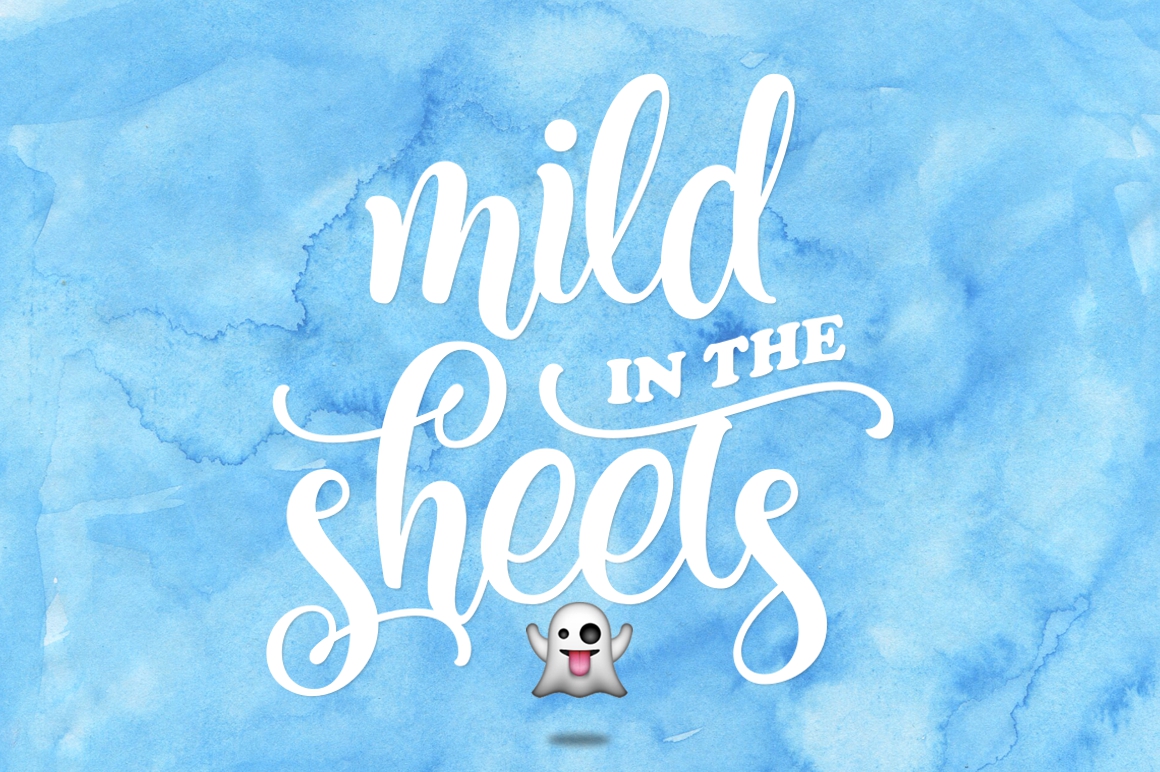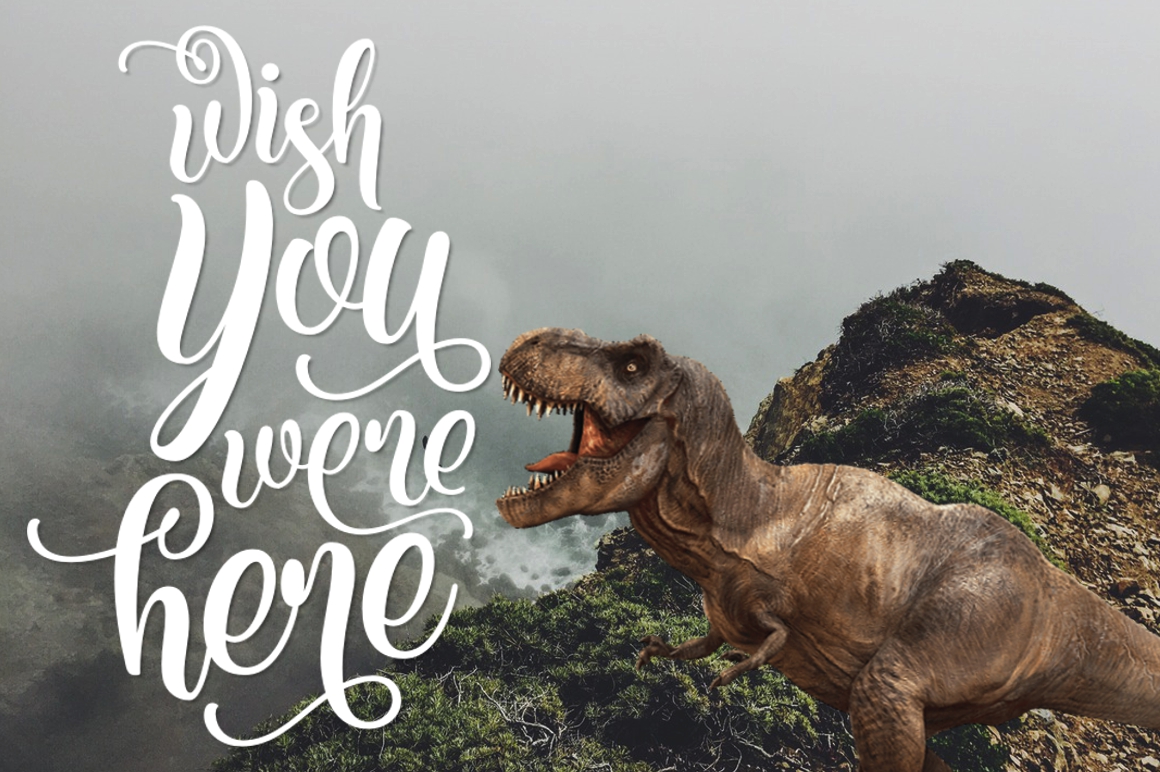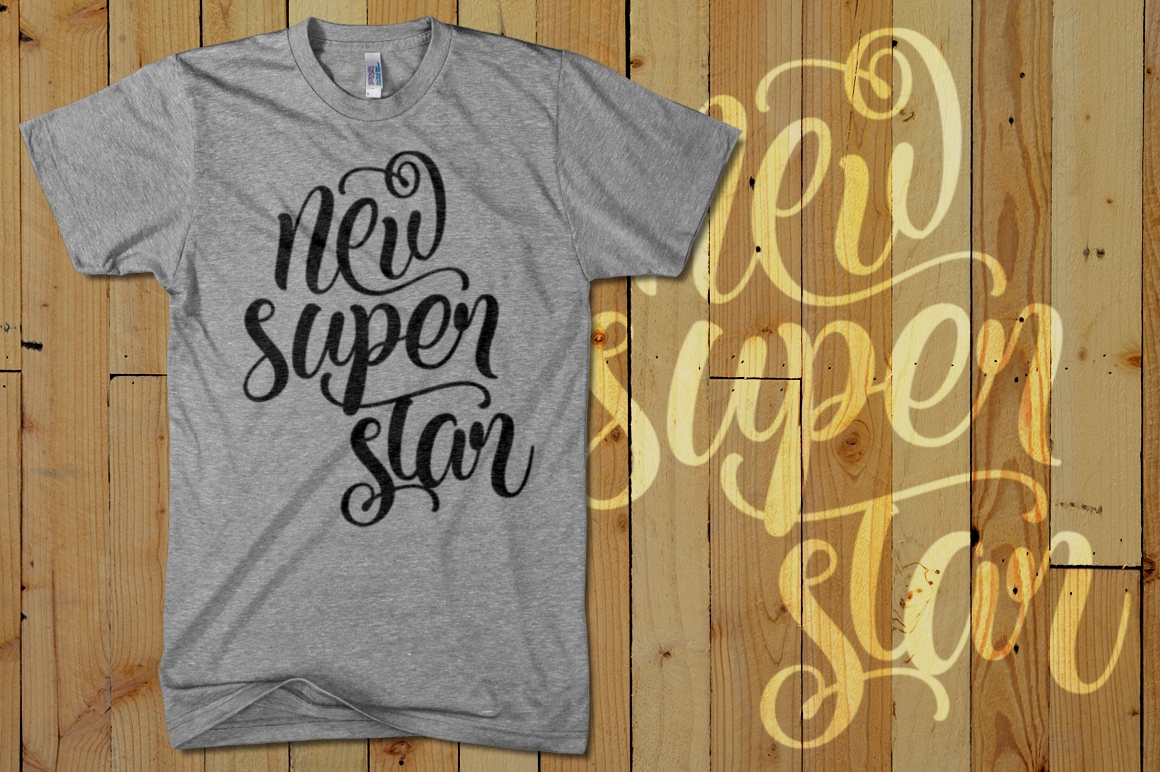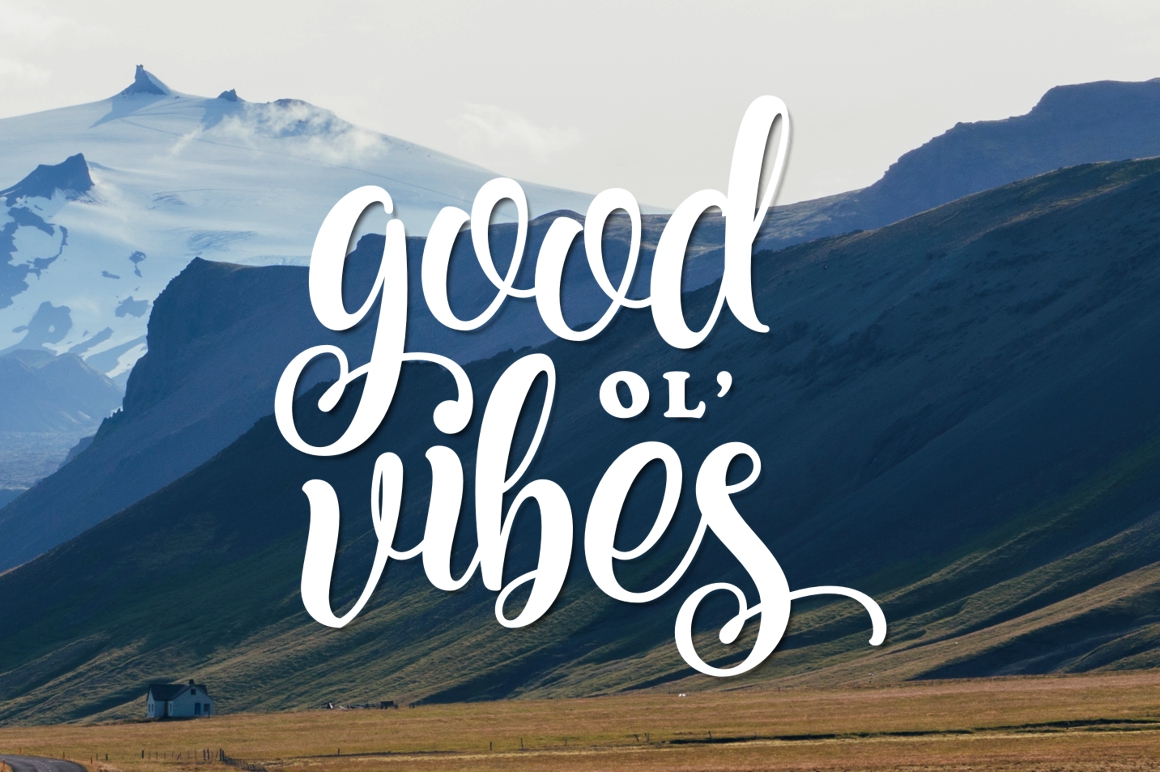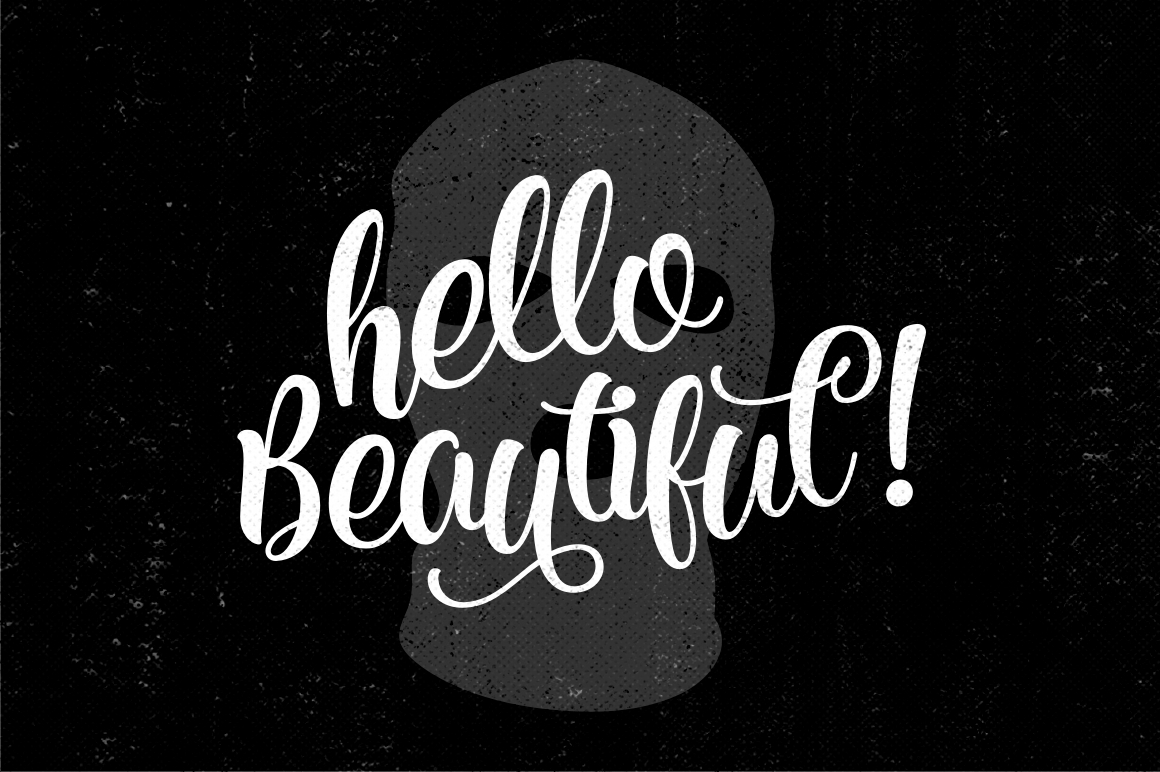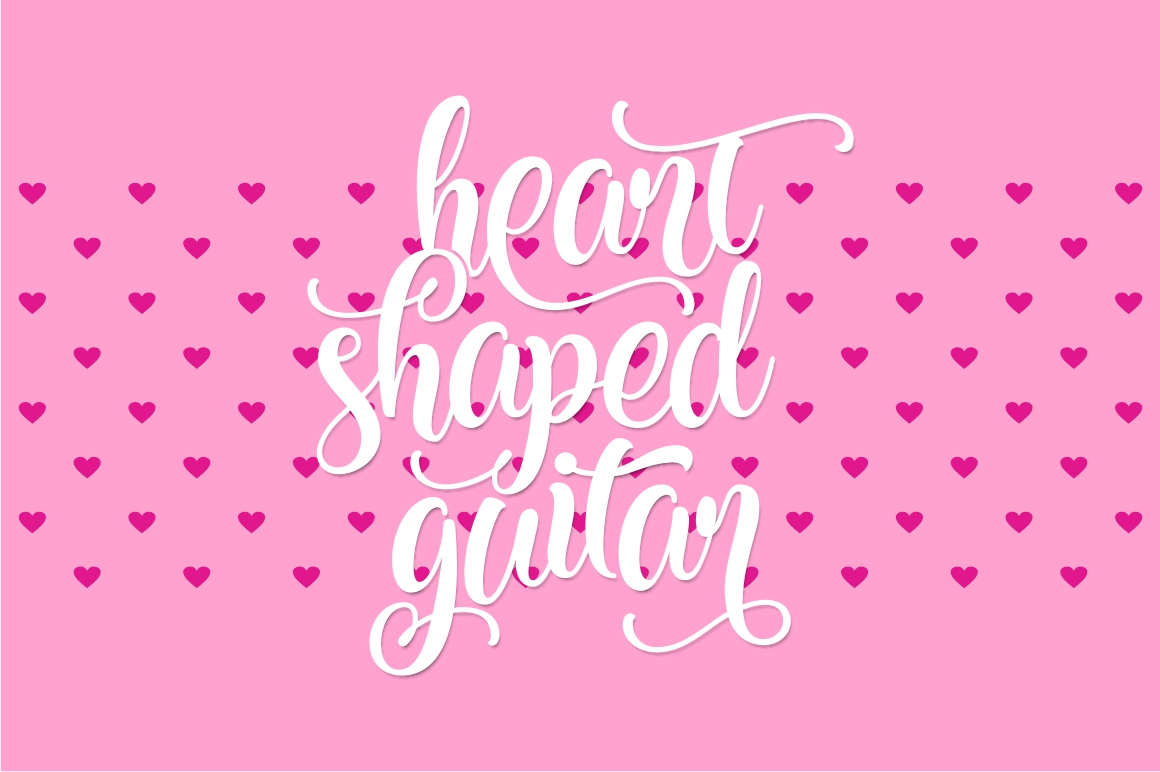
Introduction to Kite Script Font
Have you ever been brainstorming a creative project and suddenly, the perfect font strikes a chord in your mind? For many designers, this moment is a turning point that sets the tone for their entire project. For me, that moment came when I stumbled upon the Kite Script Font – a stunning script typeface that exudes elegance and class.
What I love most about the Kite Script Font is its unique ability to add a natural handwritten feel to any design project. With its thick-thin lines, inconsistent height, loose-tight kerning, and one-of-a-kind baseline combinations, this font is a true gem for designers looking to elevate their work. Whether you’re working on a branding project, creating a social media graphic, or designing a wedding invitation, the Kite Script Font is sure to bring an extra touch of sophistication to your design.
Key Features of Kite Script Font
- High-quality font perfect for creative projects and designs requiring a unique touch.
- Unique, cursive script design ideal for adding a touch of elegance and sophistication to your designs.
Honest Review: Kite Script Font
I recently had the opportunity to work with the Kite Script Font on a creative project, and I must say, I was quite impressed. This font is a great design resource for anyone looking to add a touch of elegance to their work.
- ✨ High quality: The Kite Script Font is well-crafted and looks professional, making it perfect for a variety of creative projects.
- ✨ Versatile: This font can be used for a range of applications, from headings to body text, and even for creating custom graphics.
- ⚠️ Transparent background: The font’s transparent background can be a bit tricky to work with, especially when using it on images or graphics with complex backgrounds.
- ⚠️ Limited customization options: While the font is beautiful on its own, it would be nice to have more customization options available for designers who want to make it their own.
Overall, I’m really impressed with the Kite Script Font. It’s a high-quality design resource that’s perfect for adding a touch of elegance to any creative project. Just be aware of the limitations, and you’ll be all set to create some amazing work with this font.
How to Use Kite Script Font
The Kite Script Font is a high-quality design resource ideal for creative projects. Its elegant and sophisticated design makes it perfect for various applications, from wedding invitations to branding materials.
The Kite Script Font is commonly used for:
Branding materials, such as logos and business cards
Event invitations and promotional materials